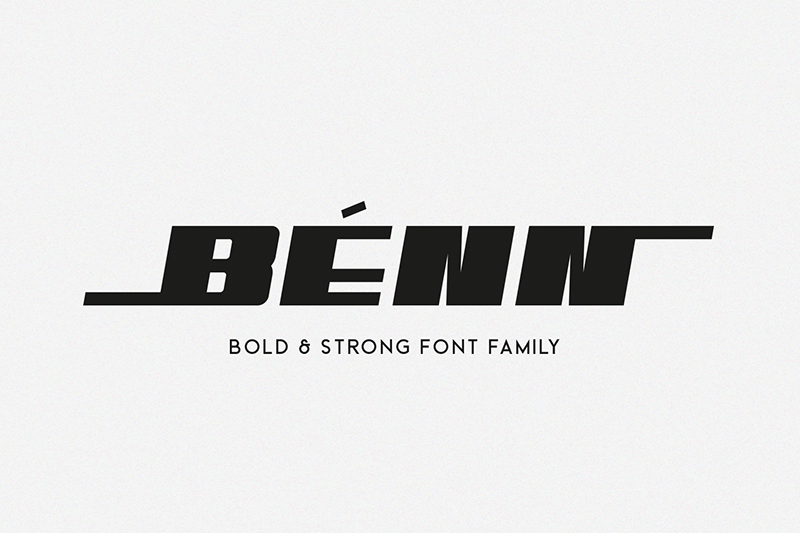
Benn is a bold and strong font family. Inspired by a car shape, it's sturdy uncompromising style is felt through the controlled letterforms and fluid touches. A balance of hard lines and smooth curves. NOTE: The alternate & Extensive glyphs are available for FULL version. ---------------------------------------------------- Download FULL version: https://crmrkt.com/ggMJMd ---------------------------------------------------- FAMILY - Benn Light (Regular & Italic) - Benn (Regular & Italic) - Benn Bold (Regular & Italic) - Benn Heavy (Regular & Italic) FEATURES - Eight styles - Numbers & Punctuation - Extensive Language Support - Alternate glyphs ---------------------------------------------------- Download FULL version: https://crmrkt.com/ggMJMd ---------------------------------------------------- Thanks for downloading my font, and I hope you enjoy it! Created by Factory738. |